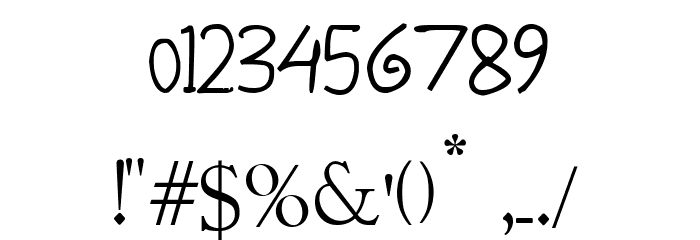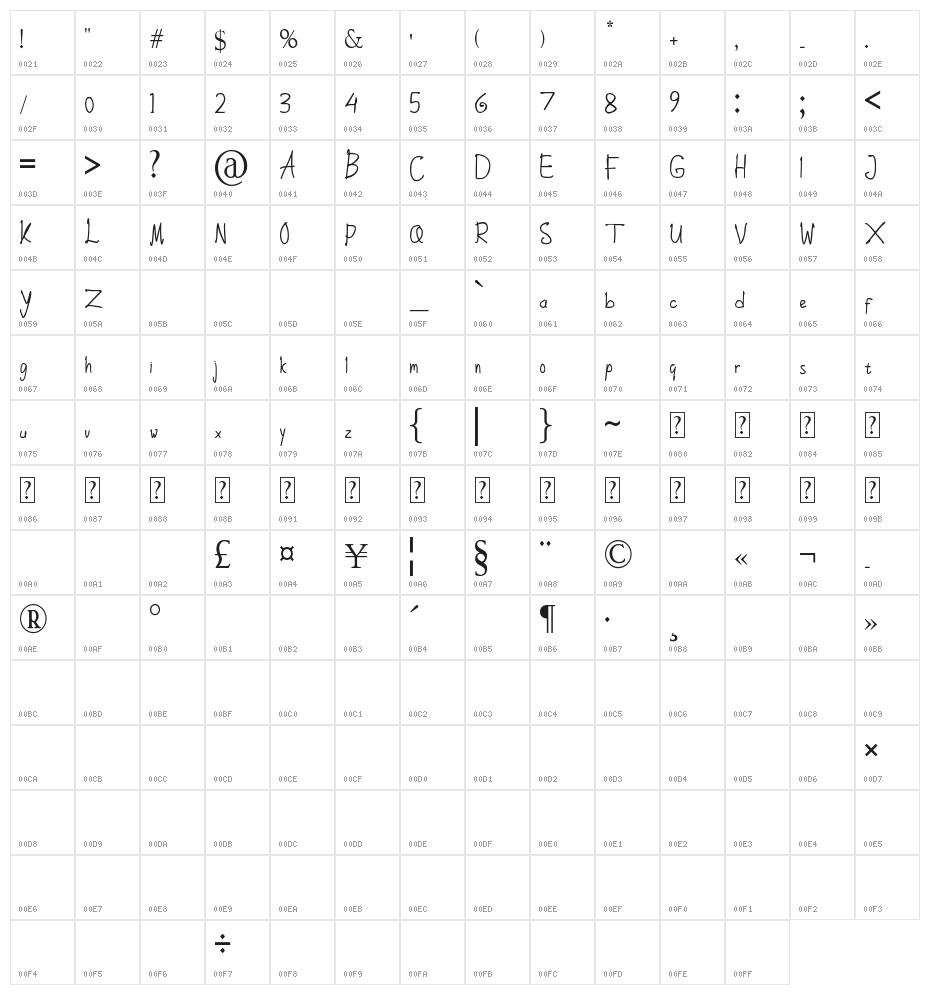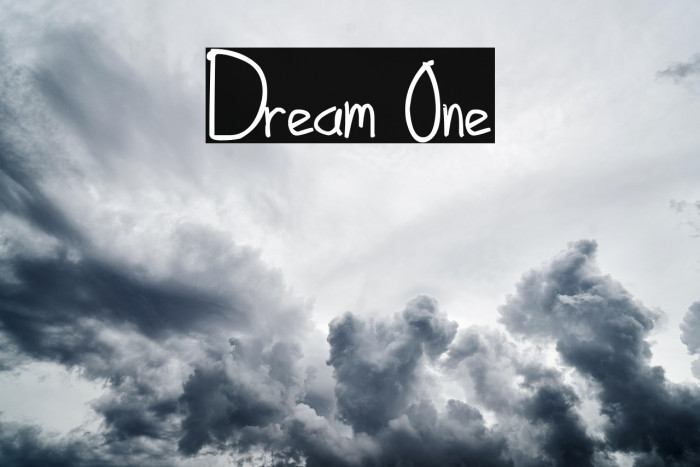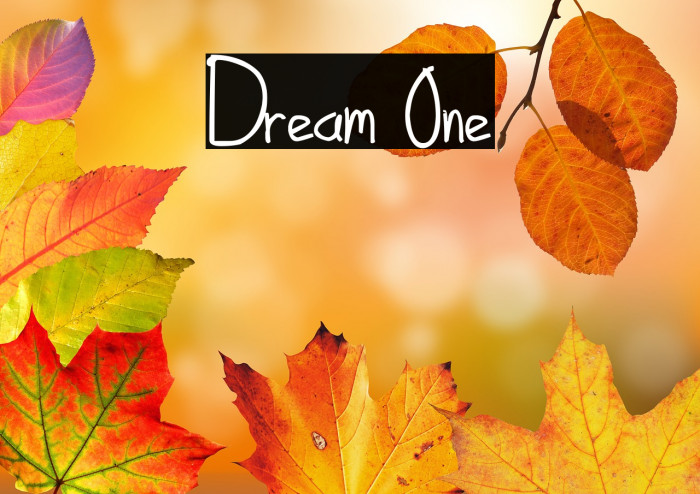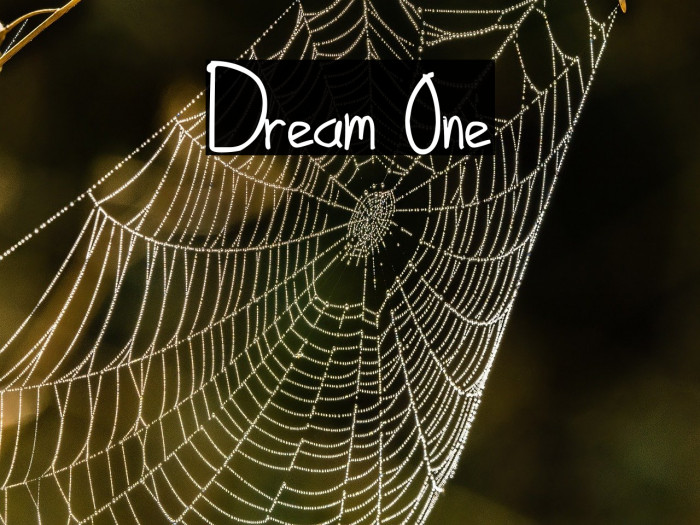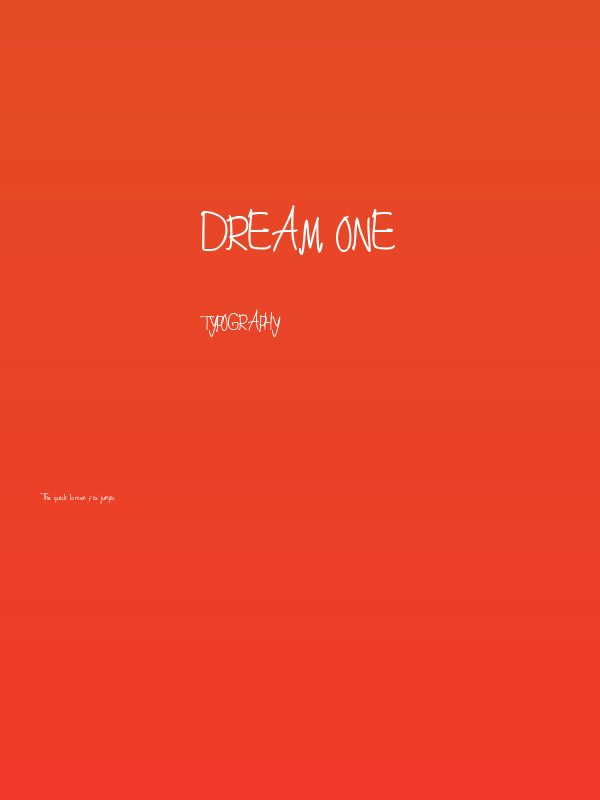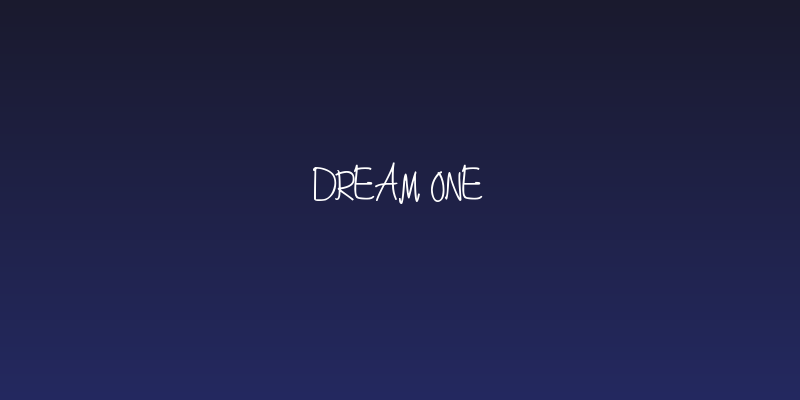
Dream One Font
Dream One Description
This font features a playful and informal handwritten style, characterized by its irregular strokes and casual appearance. The uppercase letters are bold and slightly slanted, giving a dynamic and energetic feel. The lowercase letters maintain a consistent flow, enhancing readability while preserving the font's whimsical nature. Numbers and special characters are crafted with the same lively touch, making them suitable for creative projects. The overall design is reminiscent of a personal note or doodle, perfect for adding a human touch to any design.